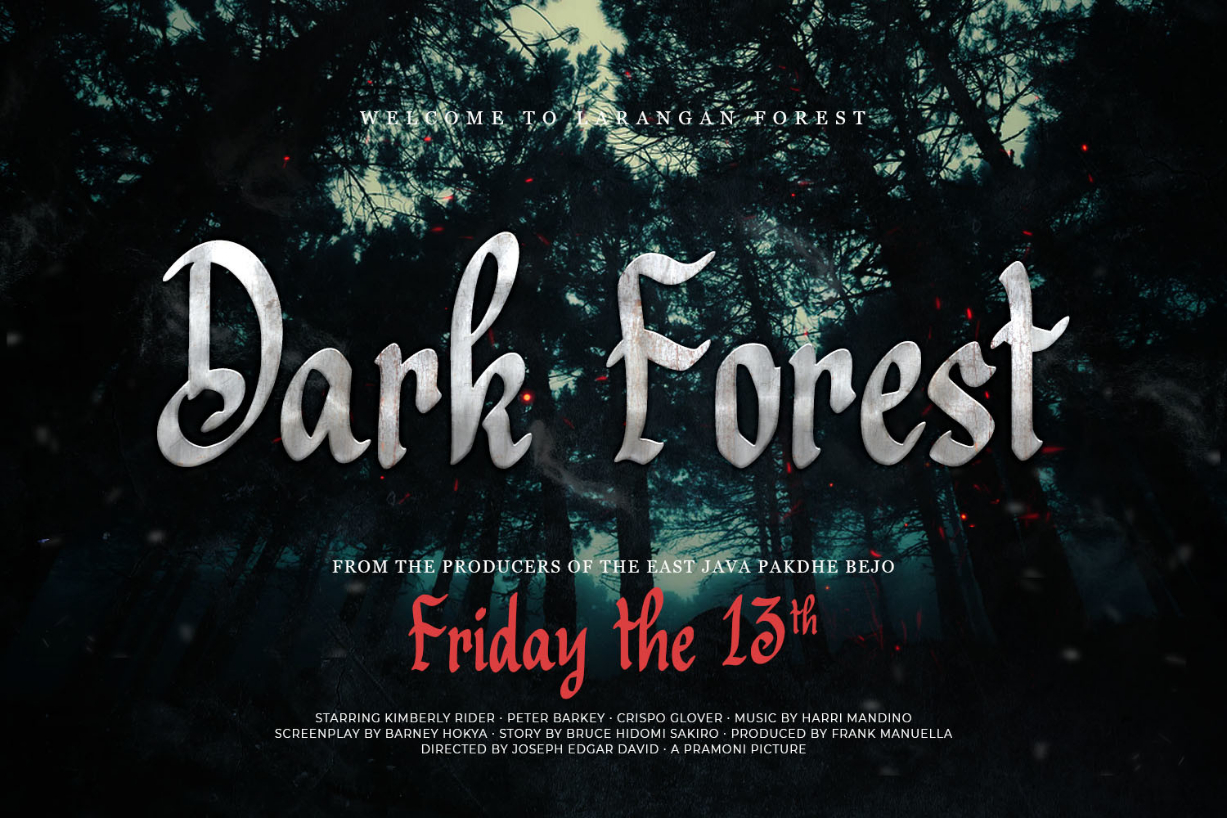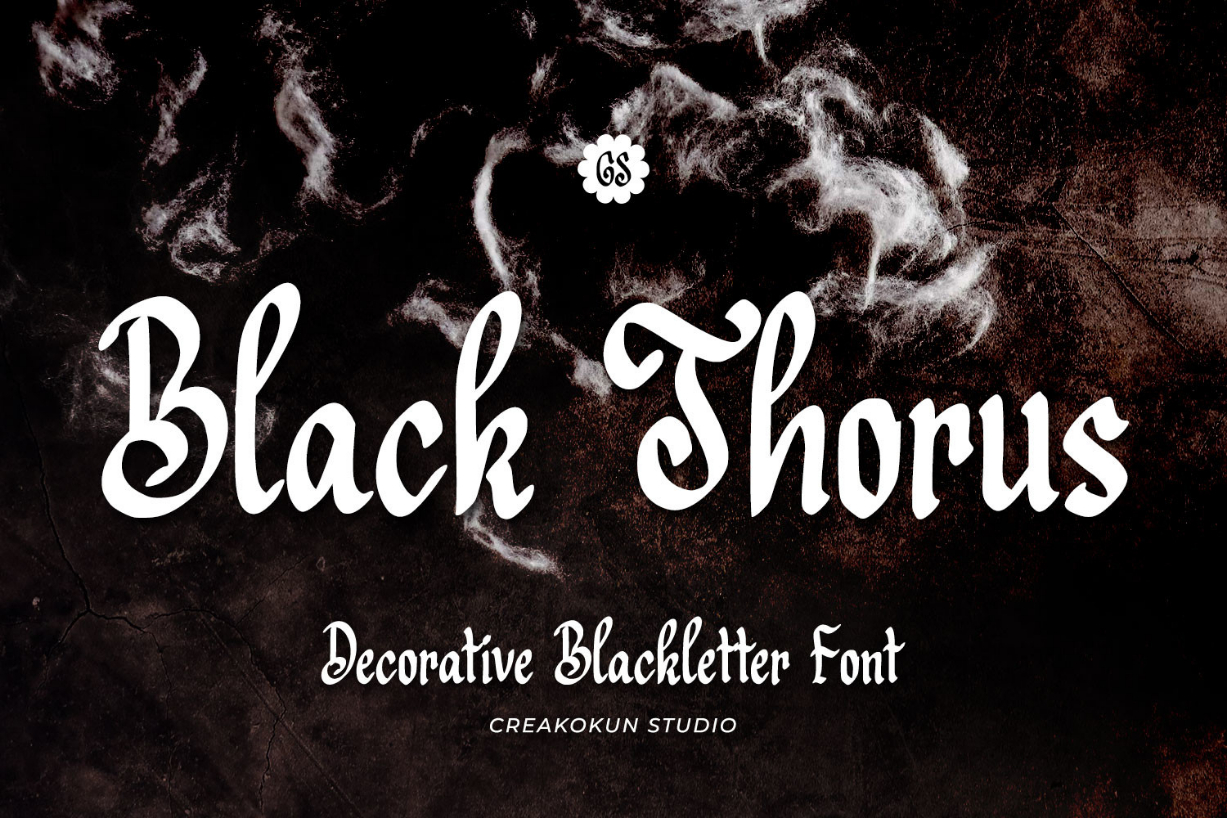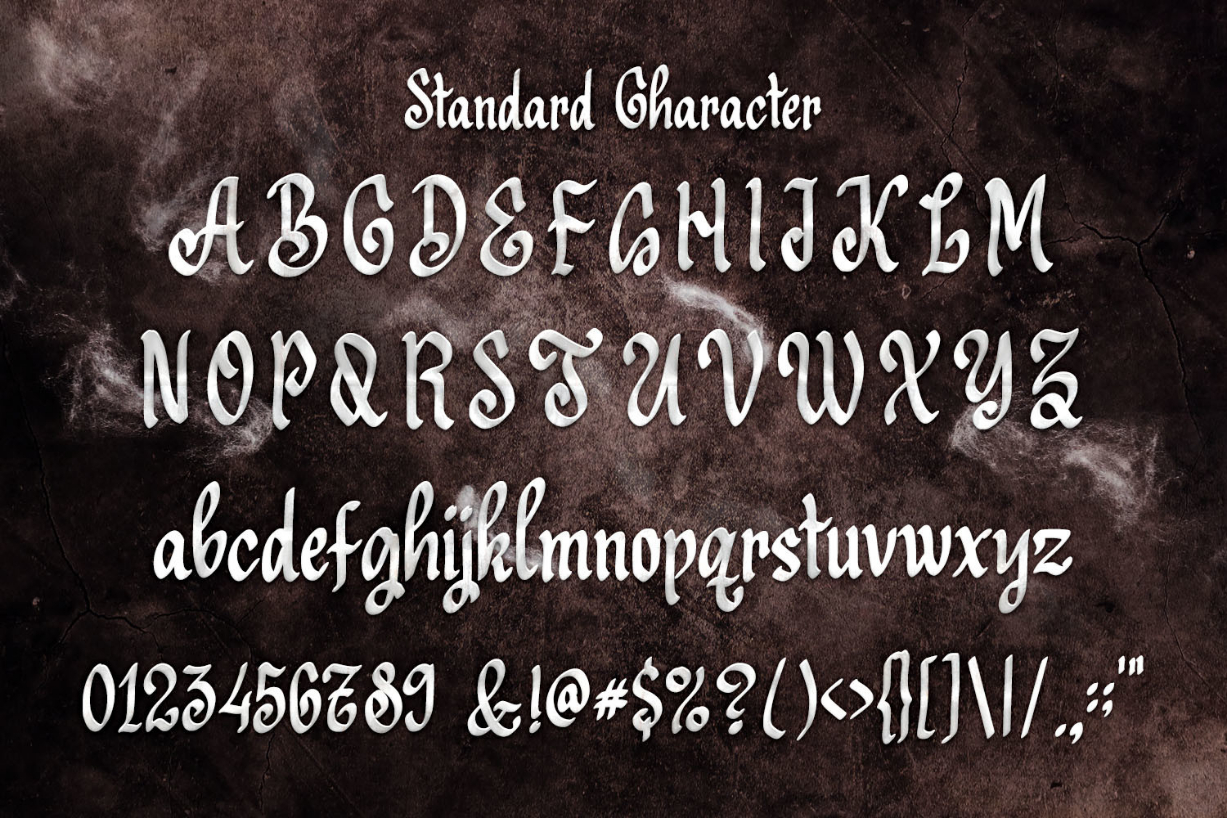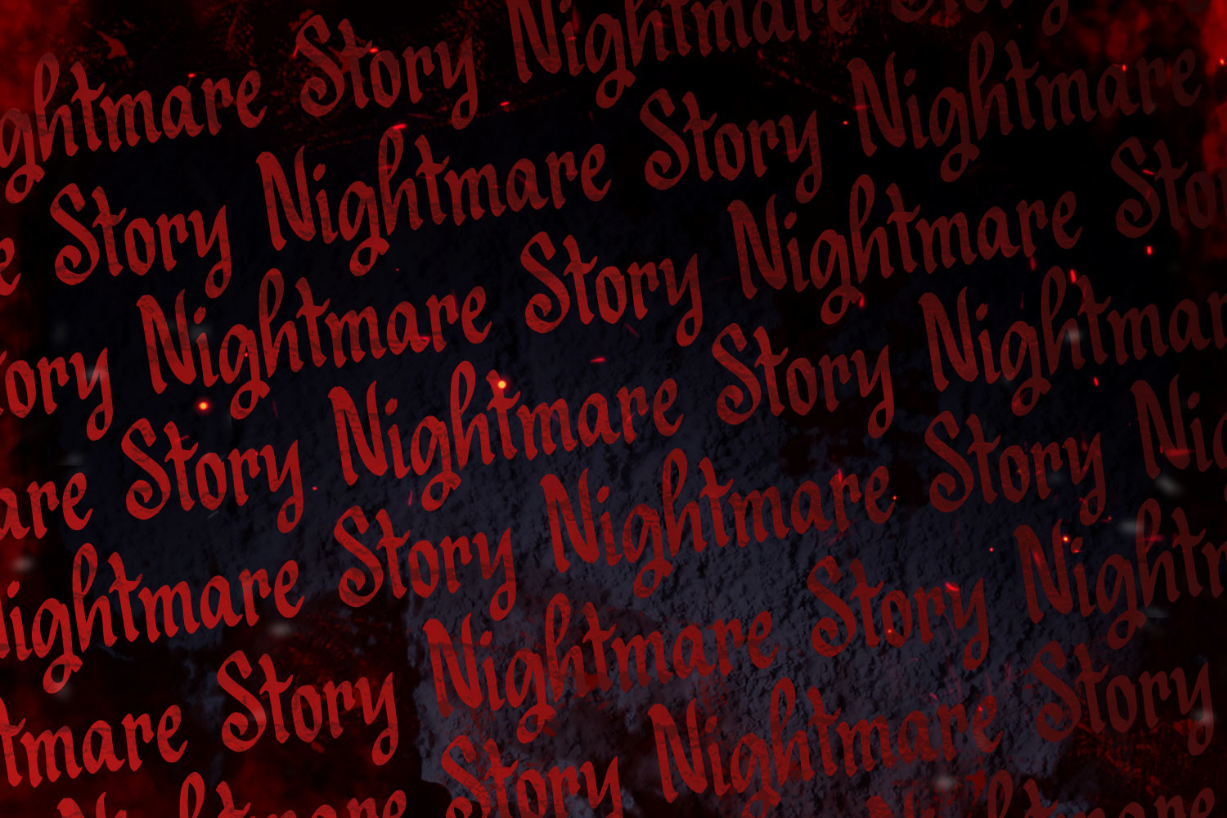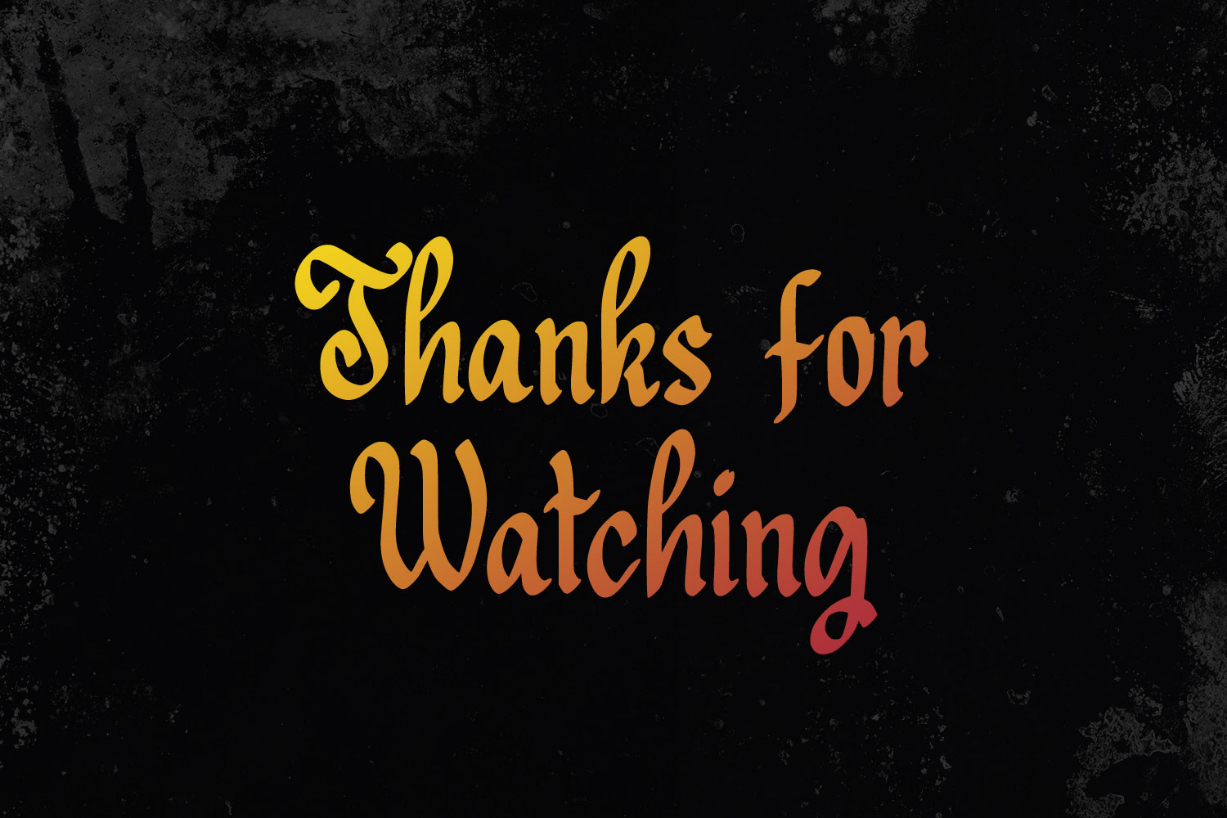
Black Thorus Font
About Black Thorus Font
Black Thorus is a distinct blackletter font inspired by vintage signs and retro labels. Whatever the topic, this font will be a wonderful asset to your font library, as it has the potential to enhance any creation.